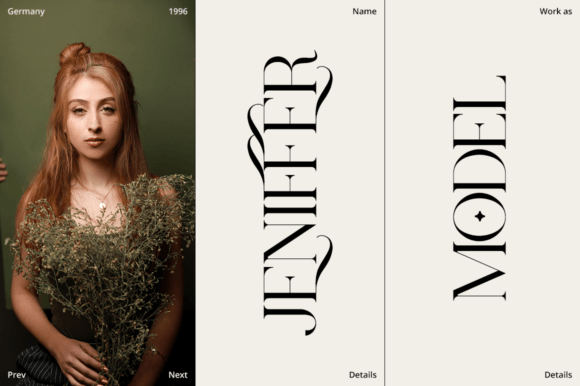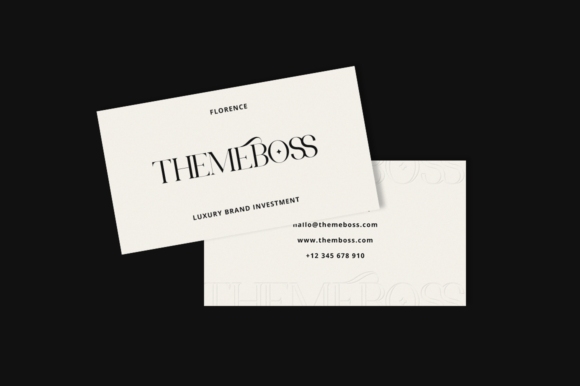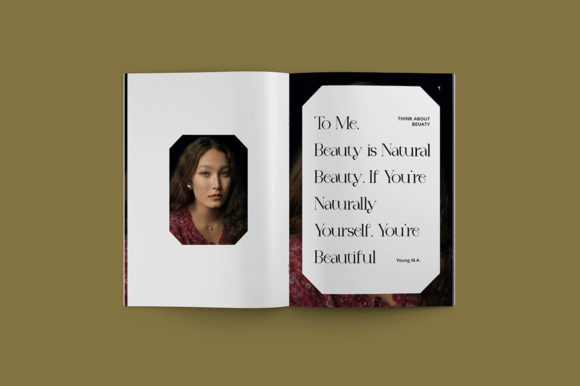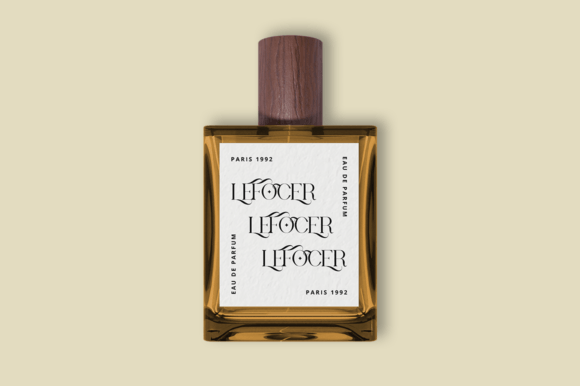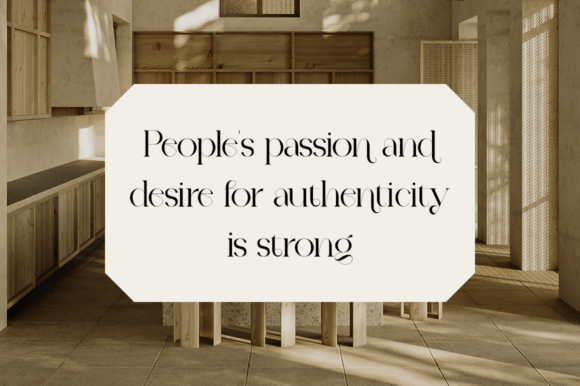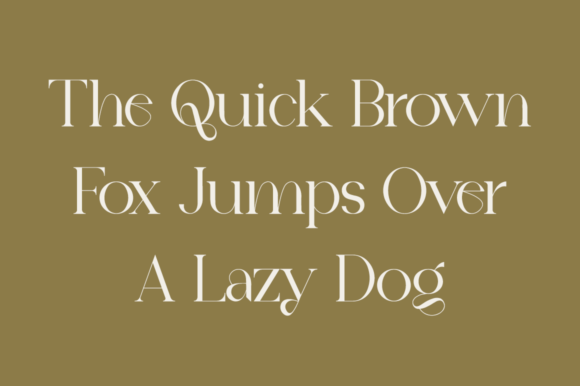
The Greffone Font: A Timeless Elegance for Your Designs
Greffone is a stylish and elegant serif font that boasts an incredibly distinct and timeless style. Its unique features and classic charm make it an excellent choice for designers, crafters, and creative hobbyists looking to create spectacular designs.
The Good: ✨
- 💯 Elegant and sophisticated: Greffone’s serif design exudes refinement and luxury, perfect for high-end branding, magazines, or formal events.
- 📚 Timeless style: This font’s classic look ensures it won’t go out of style anytime soon, making it a great investment for your design library.
- 🎨 Versatile: Greffone works well for both digital and print projects, from social media graphics to business cards and brochures.
- 👍 Easy to read: Despite its elegant design, Greffone remains highly legible, even at smaller font sizes.
The Not-So-Good: 🤔
- 🕰️ May require manual adjustments: Depending on the project, you might need to tweak the font’s spacing or kerning for optimal results.
Greffone, like many modern fonts, supports OpenType features that can enhance your designs. These features might include:
- Stylistic alternates: Offers variations of certain characters for a more customized look.
- Ligatures: Combines specific character pairs into a single glyph for improved aesthetics.
- Swashes: Adds decorative elements to characters for a more elegant feel.
The Backstory of Greffone
Greffone was designed with the intention of capturing the essence of classic elegance while infusing it with a modern twist. Its creator aimed to produce a font that would be versatile enough for various design applications, from editorials to branding. The result is a font that feels both nostalgic and contemporary.
Q: What makes Greffone unique?
A: Greffone’s uniqueness lies in its elegant serif design combined with its versatility and timeless appeal. It’s perfect for projects requiring a touch of sophistication.
Q: Is Greffone suitable for body text?
A: Absolutely! Greffone’s clear and elegant design makes it suitable for body text, especially in editorials, magazines, and high-end branding materials.